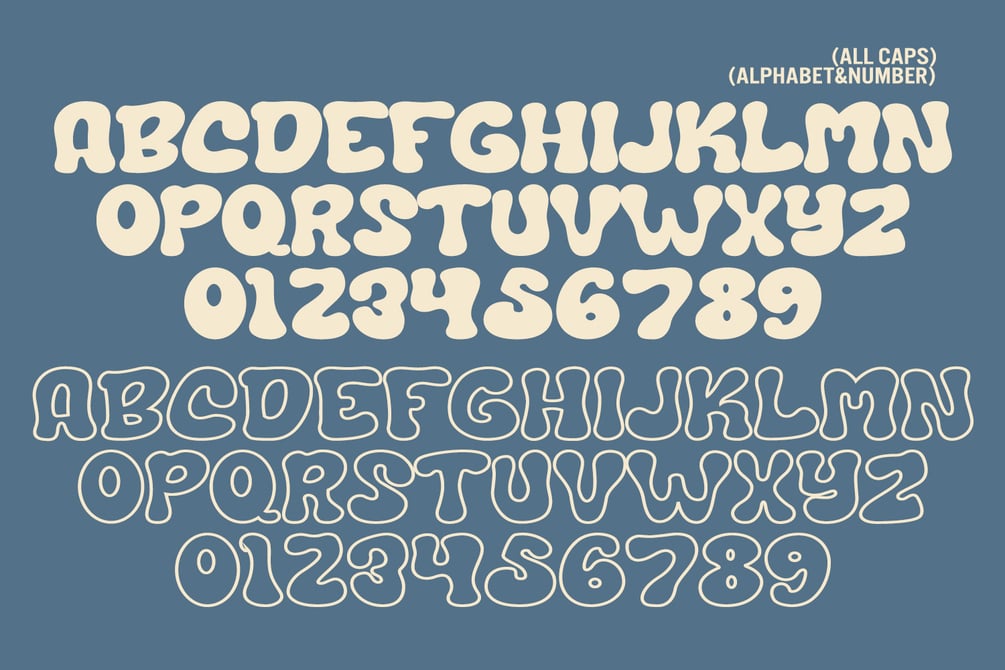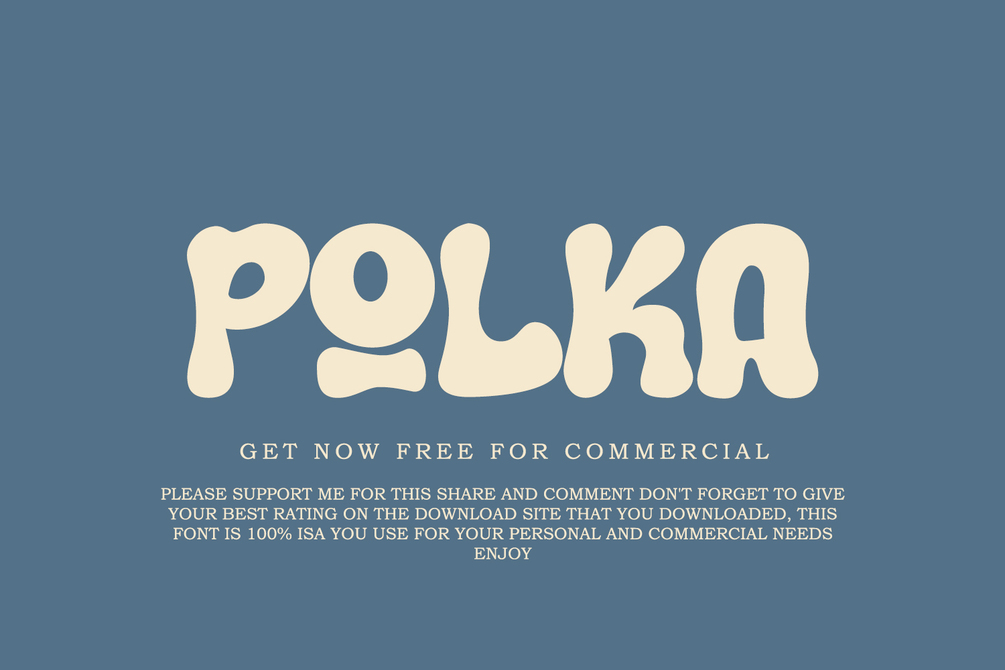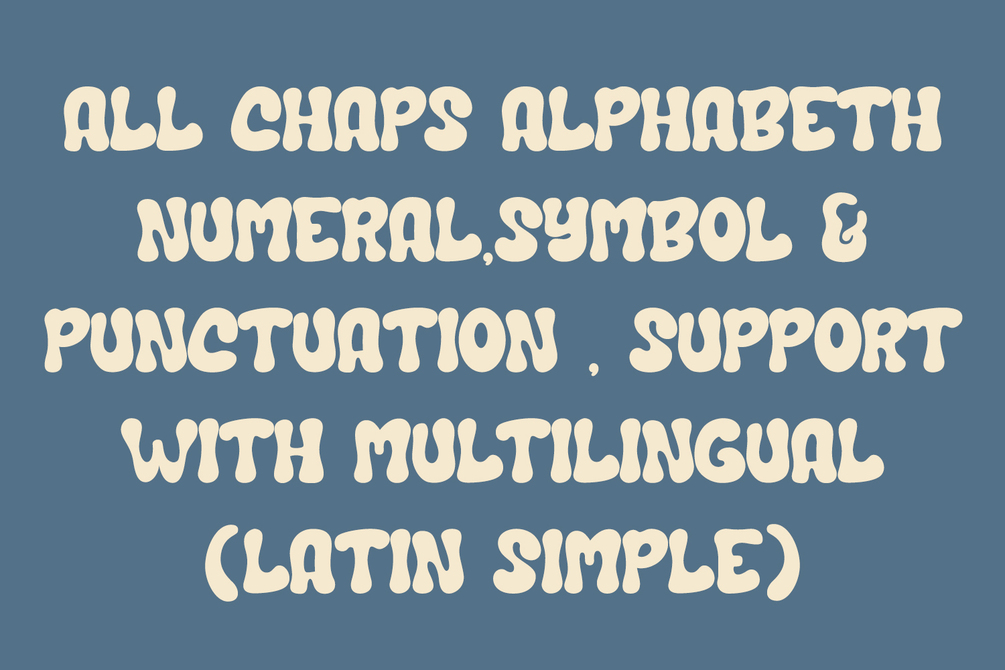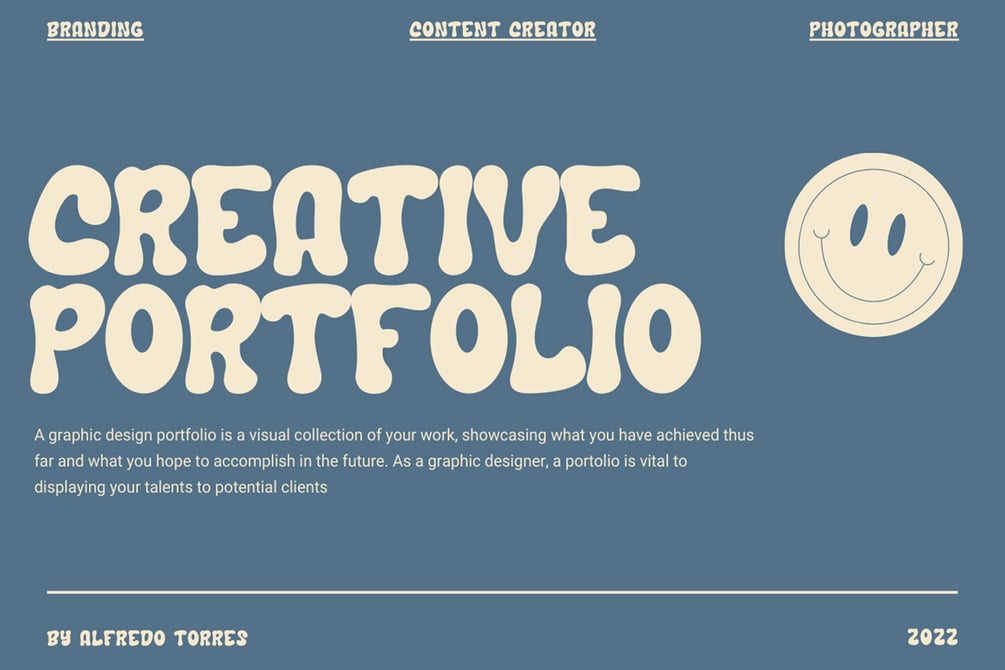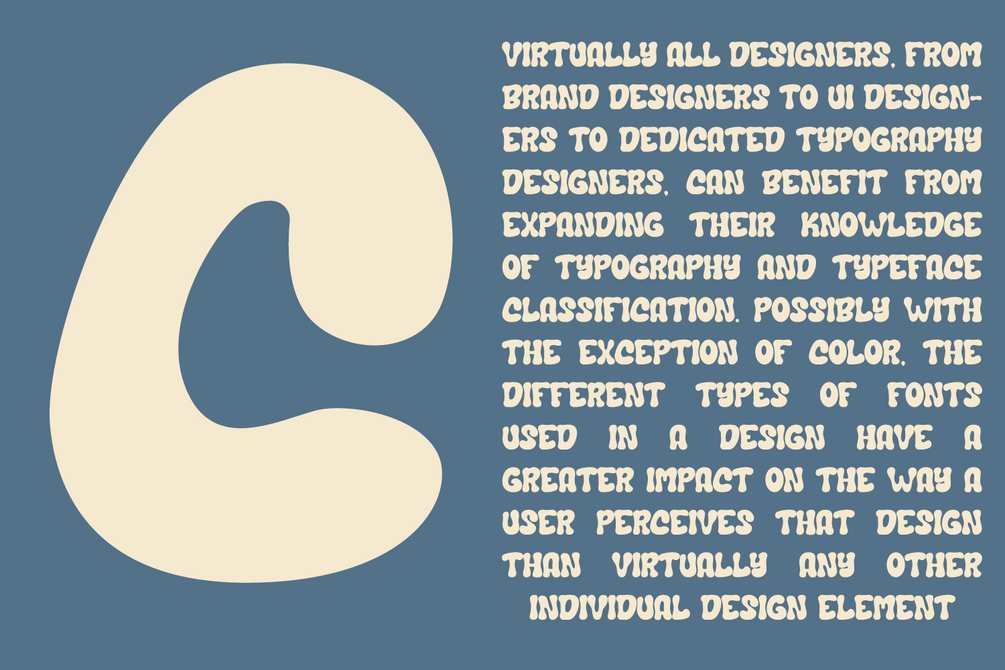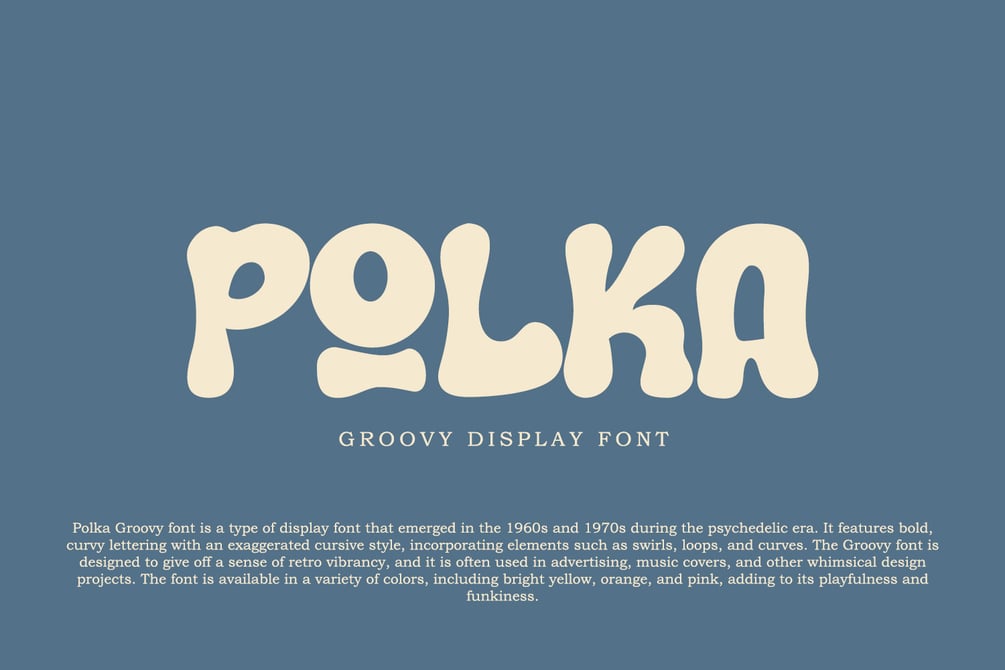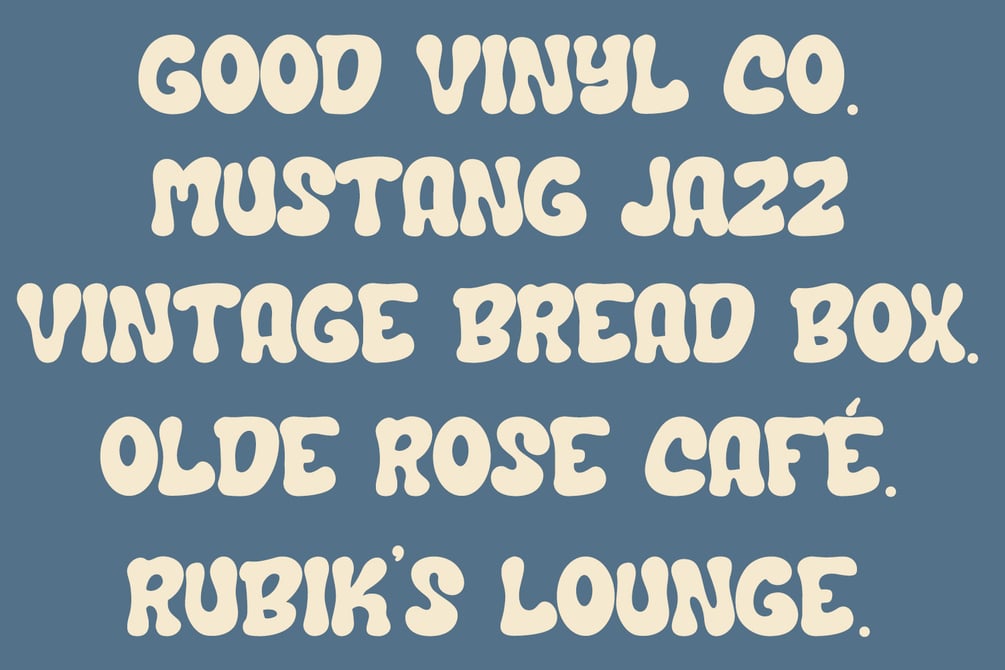
Polka - Groovy Font ( FREE COMERCIAL )
Polka Groovy font is a type of display font that emerged in the 1960s and 1970s during the psychedelic era. It features bold, curvy lettering with an exaggerated cursive style, incorporating elements such as swirls, loops, and curves. The Groovy font is designed to give off a sense of retro vibrancy, and it is often used in advertising, music covers, and other whimsical design projects. The font is available in a variety of colors, including bright yellow, orange, and pink, adding to its playfulness and funkiness.